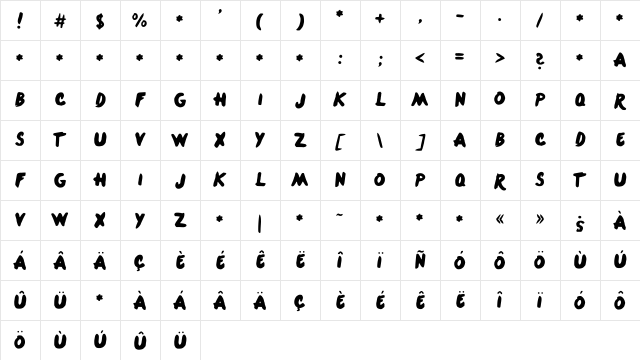
OneDirection Medium Free Font
OneDirection Medium
Design Context for OneDirection
OneDirection is a composed and adaptable typeface that performs quietly and consistently across a wide range of design contexts.